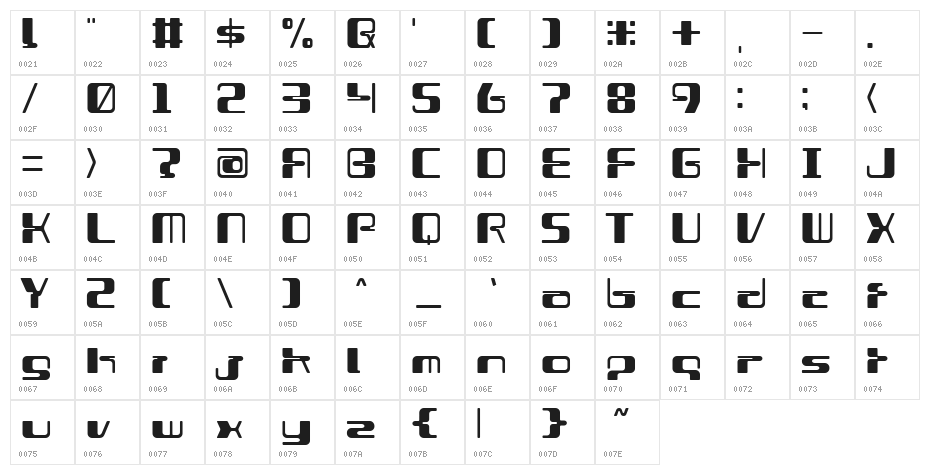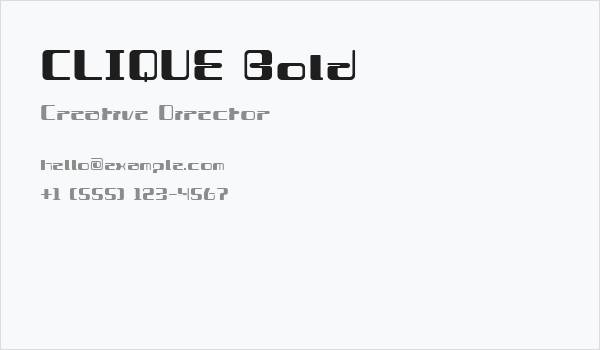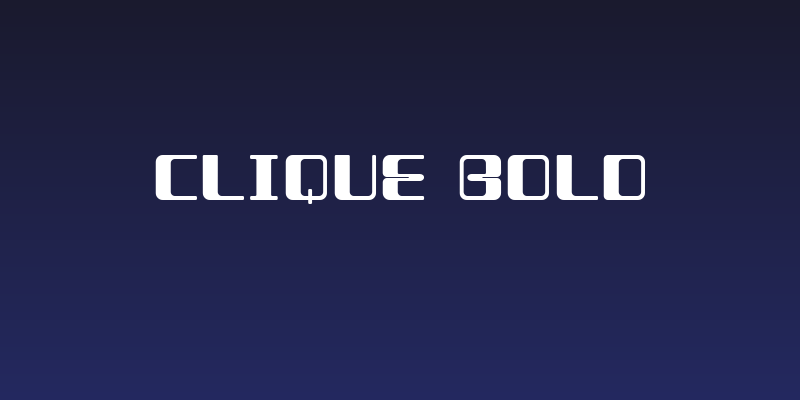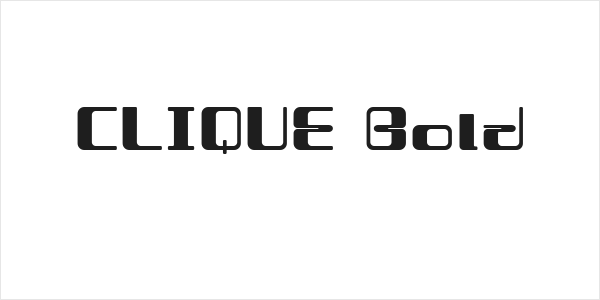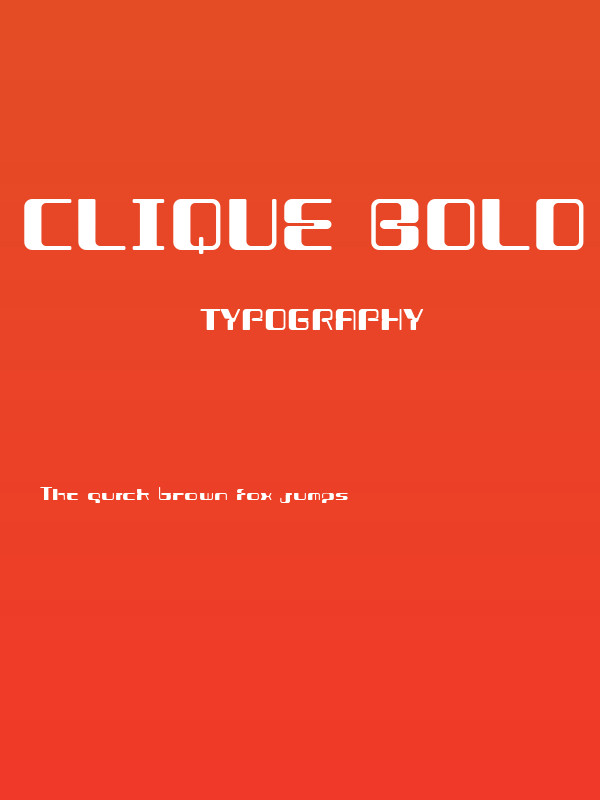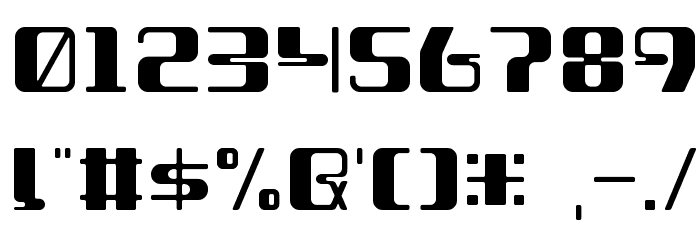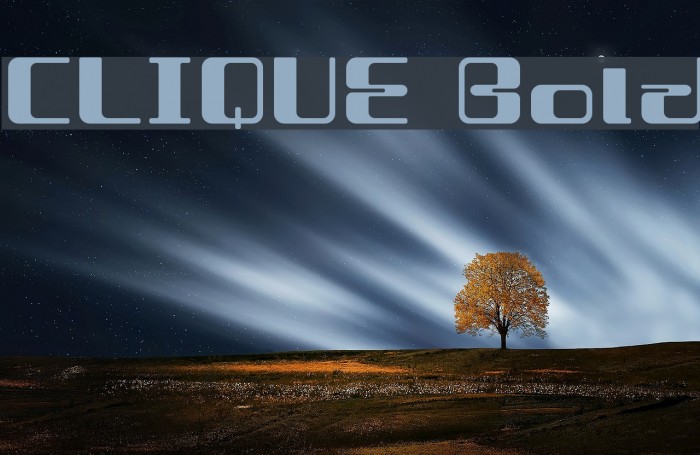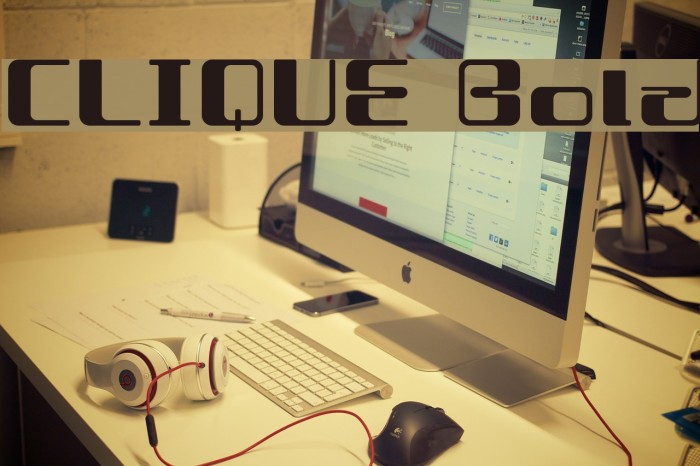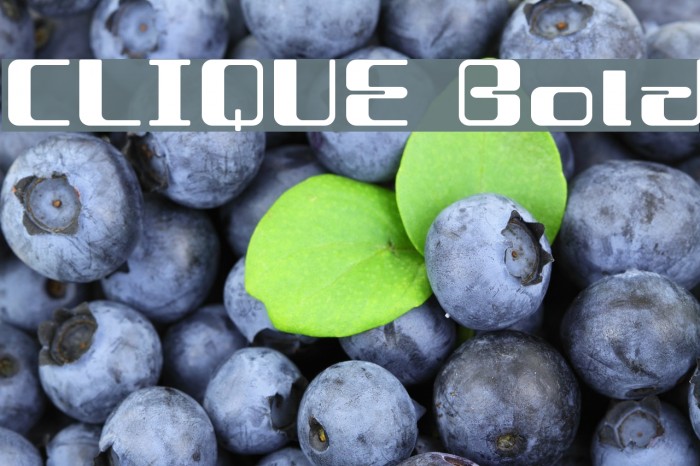
CLIQUE Bold Font
CLIQUE Bold Description
This font features a bold, futuristic design with a distinct geometric structure. The characters are crafted with a combination of sharp angles and rounded edges, creating a unique and modern appearance. The uppercase letters are particularly striking, with a strong presence and a slightly condensed form. The lowercase letters maintain the geometric theme, offering a cohesive look throughout the typeface. Numbers and special characters are designed to match the bold and innovative style, making this font suitable for a variety of creative applications.
CLIQUE-BOLD UPPERCASE
CLIQUE-BOLD LOWERCASE
CLIQUE-BOLD OTHER CHARS